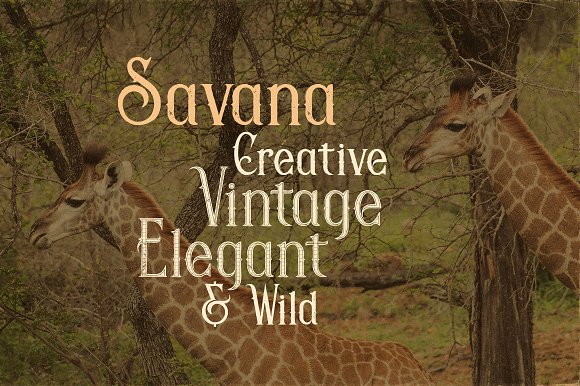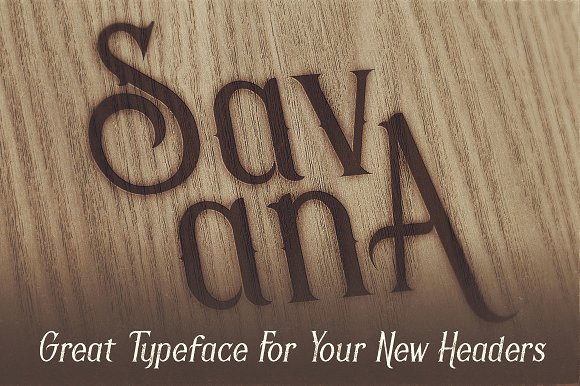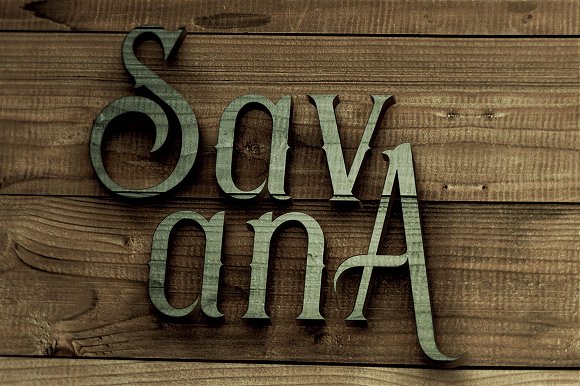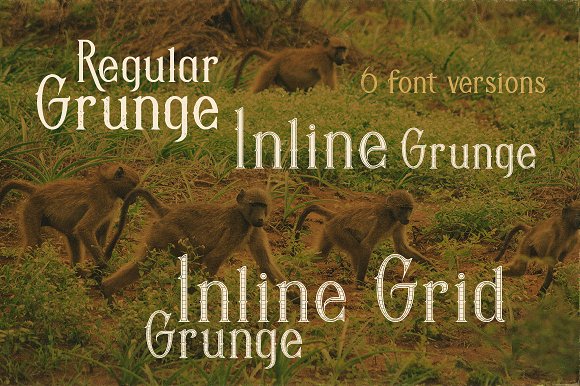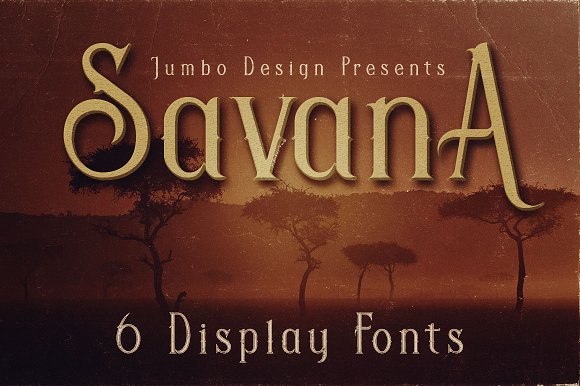
Savana – Display Font
Unique vintage or retro style custom serif font with 6 styles: regular and grunge, inline and inline grunge, inline grid and inline grid grunge!